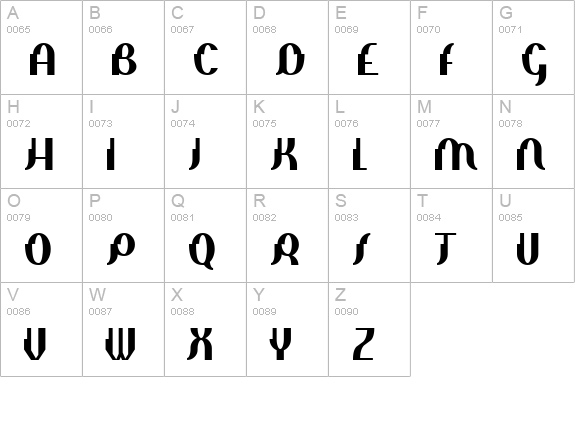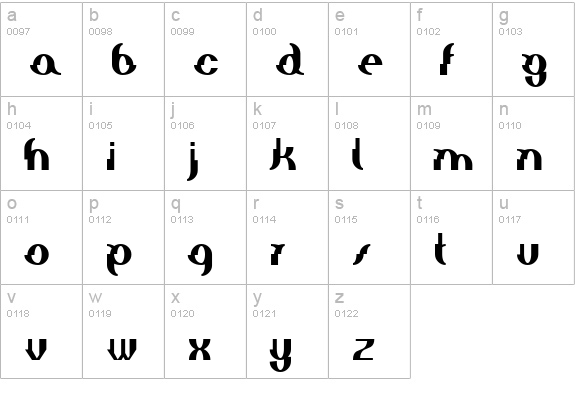
The Elephant Man font is a bold and striking typeface that exudes strength and power. Its thick, blocky letterforms make a bold statement and command attention. This font is perfect for headlines, logos, and other design projects that require a strong and impactful look. What's even better is that the Elephant Man font is completely free to download at FontsMarket.com. You can add this eye-catching font to your collection without spending a dime. Don't miss out on the opportunity to enhance your designs with this powerful and dynamic typeface. Download the Elephant Man font today and make a bold statement with your next project.